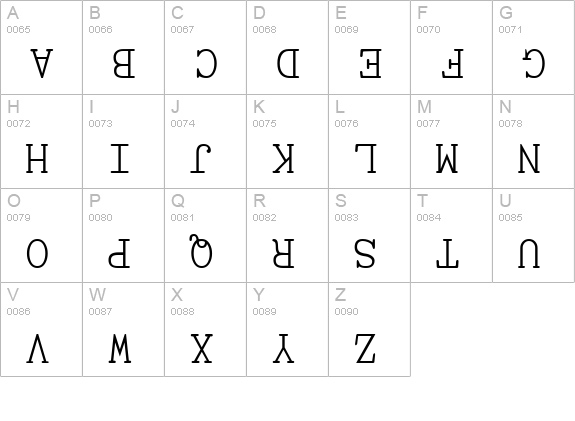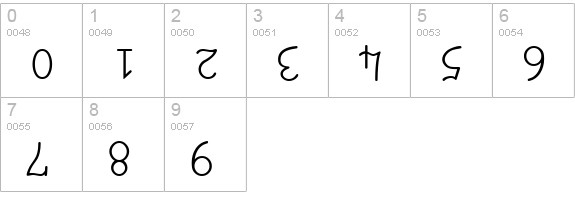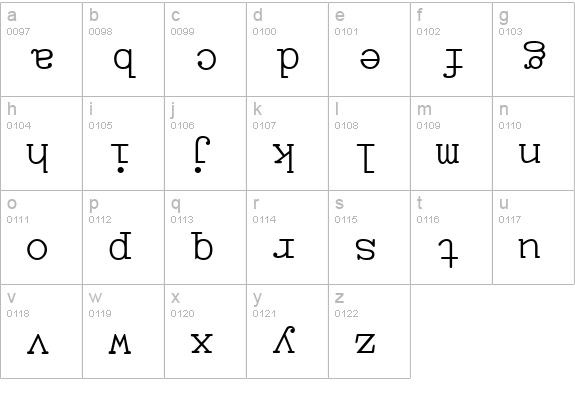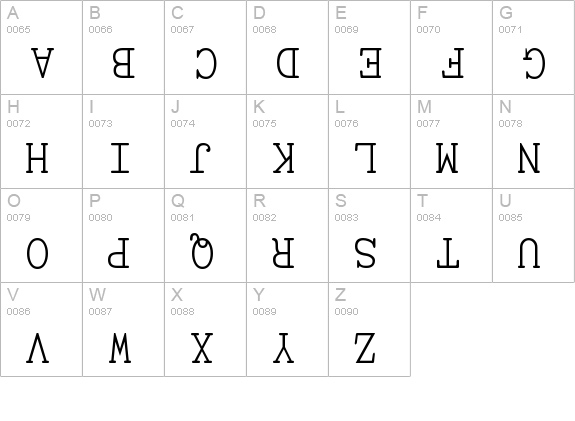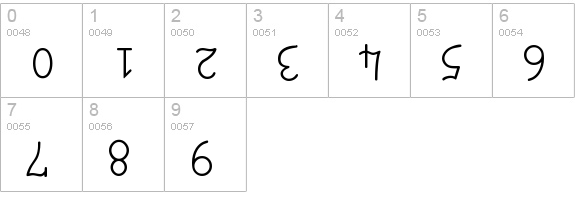
UpsideDown Font Details
Introducing the mesmerizing UpsideDown font, a truly unique and eye-catching typeface that will leave you spellbound. This font takes the art of typography to new heights by defying convention and turning the world of letters on its head, quite literally. Each character is expertly crafted to appear as if it's been flipped upside down, creating an intriguing visual experience that is sure to captivate any audience. UpsideDown font is not only a feast for the eyes but also a testament to the boundless creativity of its designer. With its unconventional design, this font effortlessly breaks away from the mundane and traditional, offering a fresh and innovative approach to typography. Whether you're looking to elevate your branding, add a touch of whimsy to your designs, or simply make a bold statement, UpsideDown font is your ultimate tool. The best part? UpsideDown font is freely available to download at FontsMarket.com. Yes, you read that right – this incredible typeface can be yours without spending a single penny. We believe in making great design accessible to all, and that includes providing high-quality fonts that won't break the bank. So, go ahead and unleash your creativity with UpsideDown font, and watch as your designs take on a whole new dimension. With its versatility and undeniable visual impact, UpsideDown font is perfect for a wide range of projects. Whether you're designing logos, posters, advertisements, or even social media graphics, this font is guaranteed to make a lasting impression. Its clean lines, flawless curves, and impeccable balance ensure that every letter shines, even when flipped on its head. So, what are you waiting for? Embrace the unexpected, break free from the ordinary, and download UpsideDown font today from FontsMarket.com. Elevate your designs, defy expectations, and let your creativity soar to new heights with this one-of-a-kind typeface. The possibilities are endless, and the choice is yours.